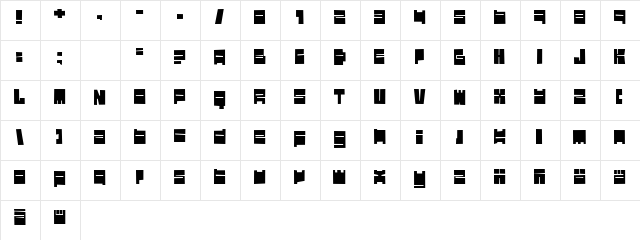
testi Regular
Design Context for testi Typeface
testi is a composed and adaptable typeface that performs quietly and consistently across a wide range of design contexts.